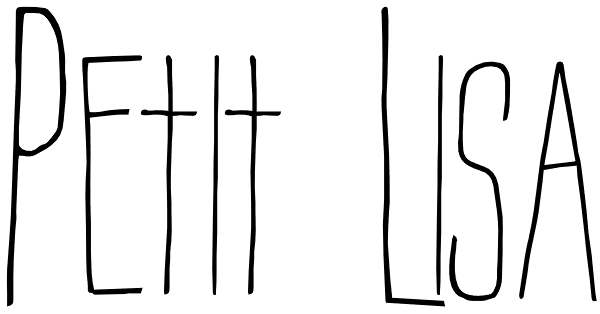
Petit Lisa
This font was drawn by artist, Lisa Congdon. Design23 and Lisa Congdon have formed an amazing type partnership... Lisa draws her beautiful fonts for her series, 365 Days of Hand Lettering and Design23 programs and edits the series, bringing it to...